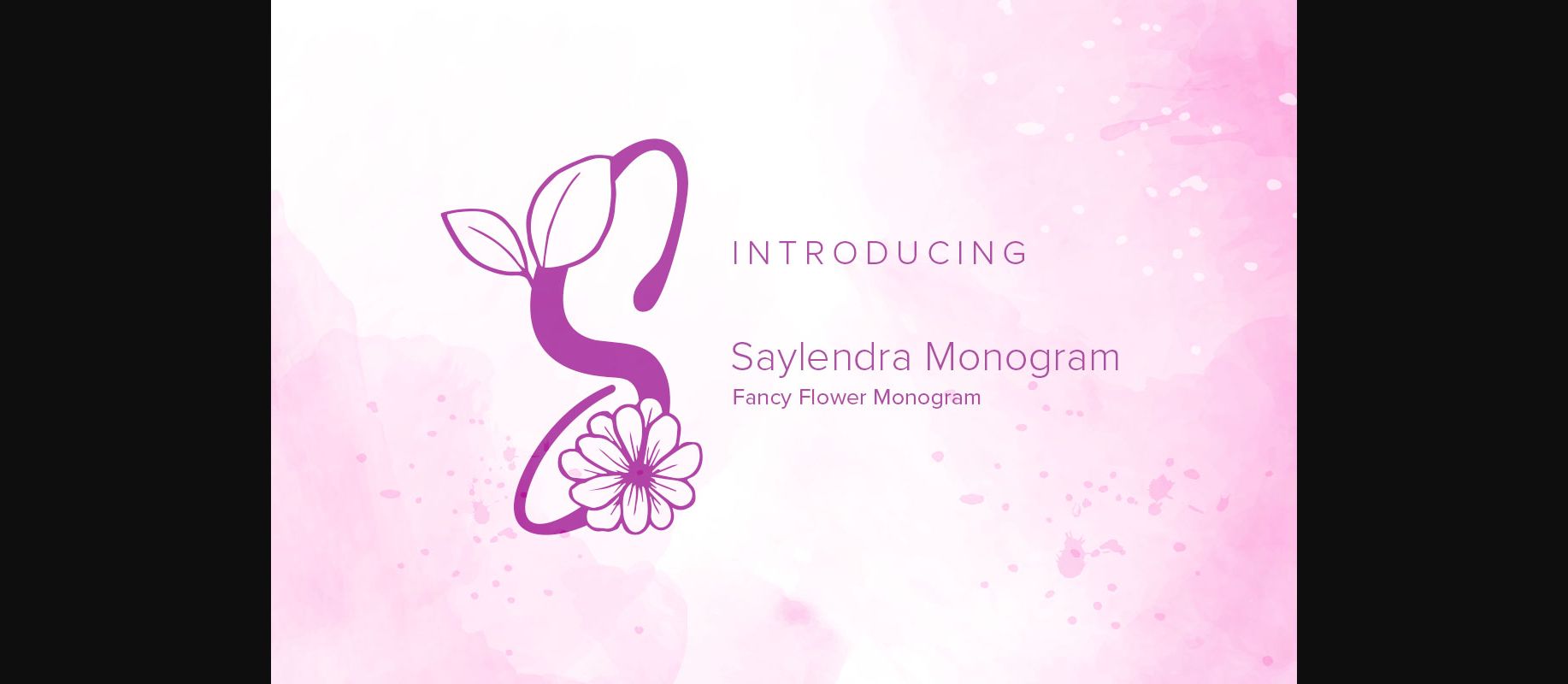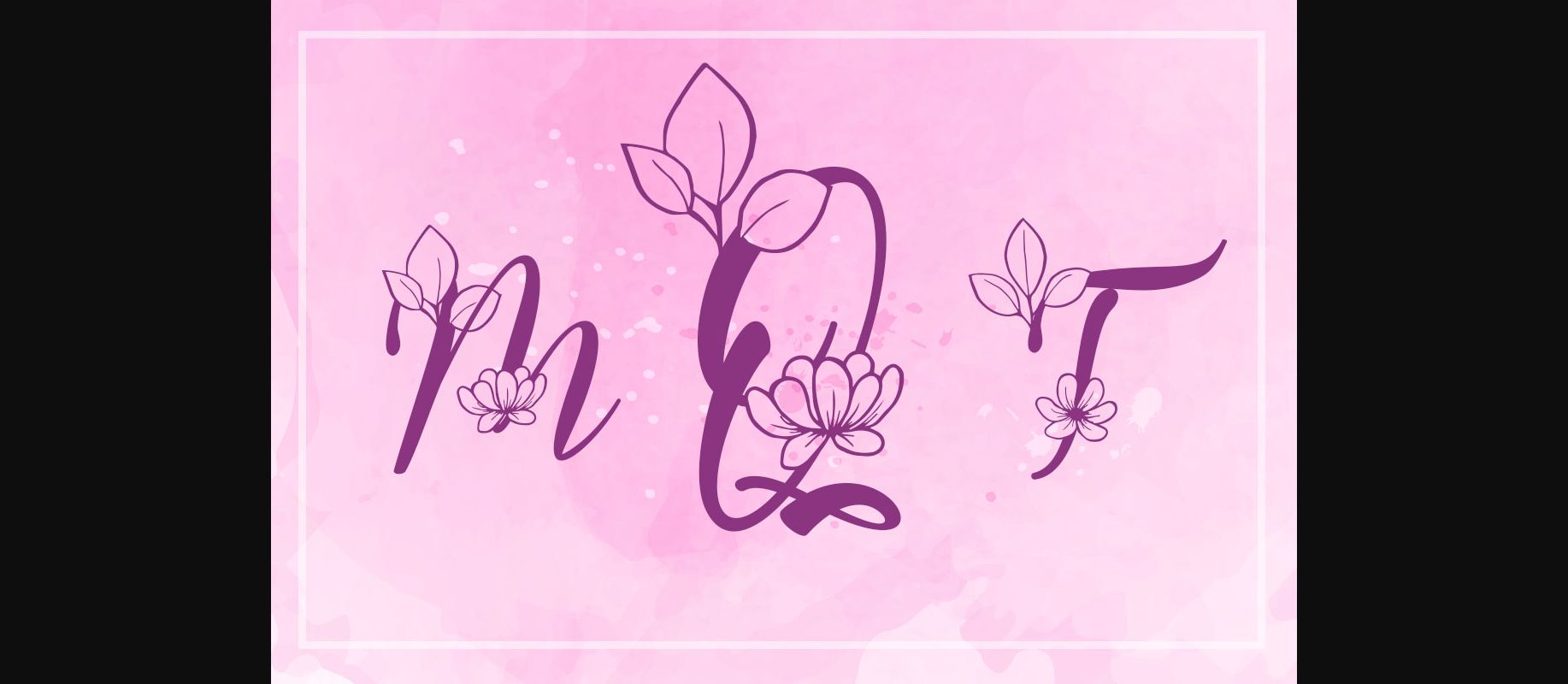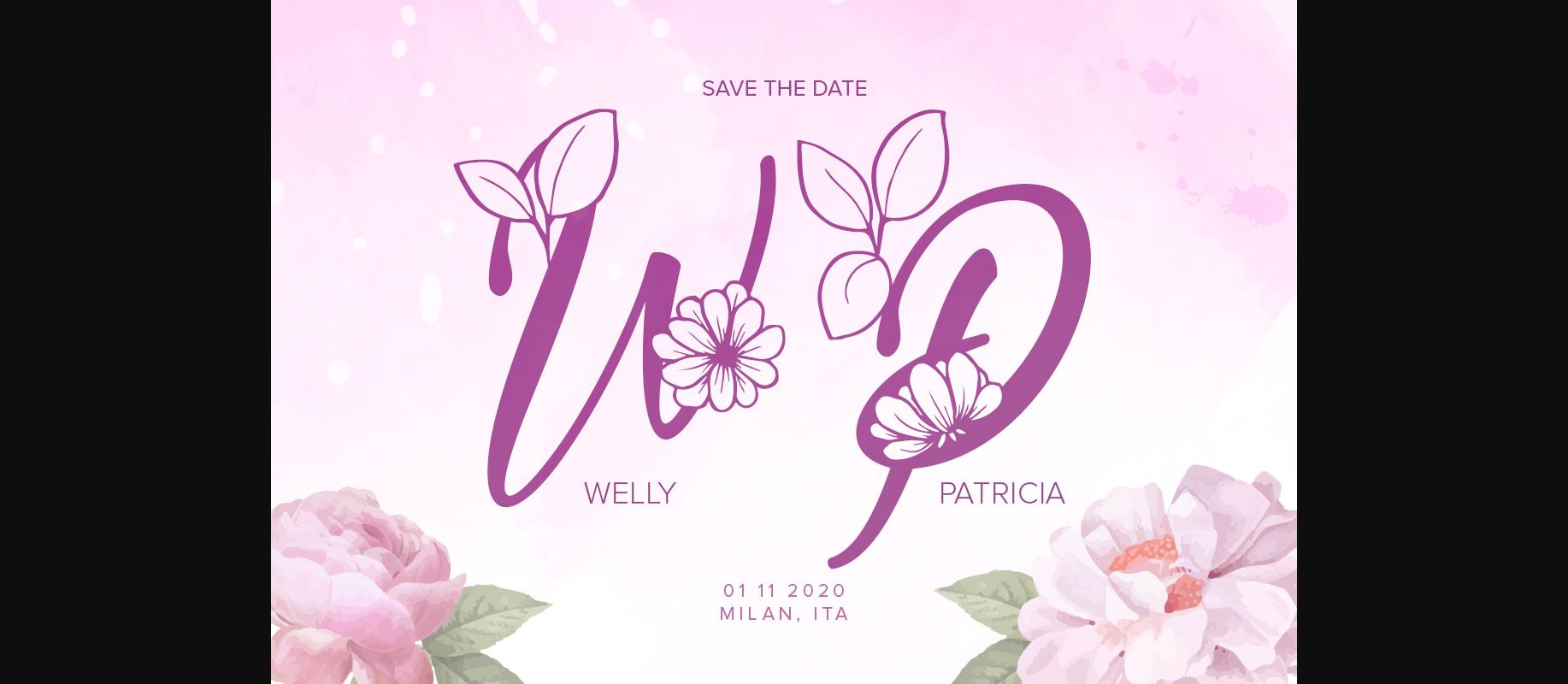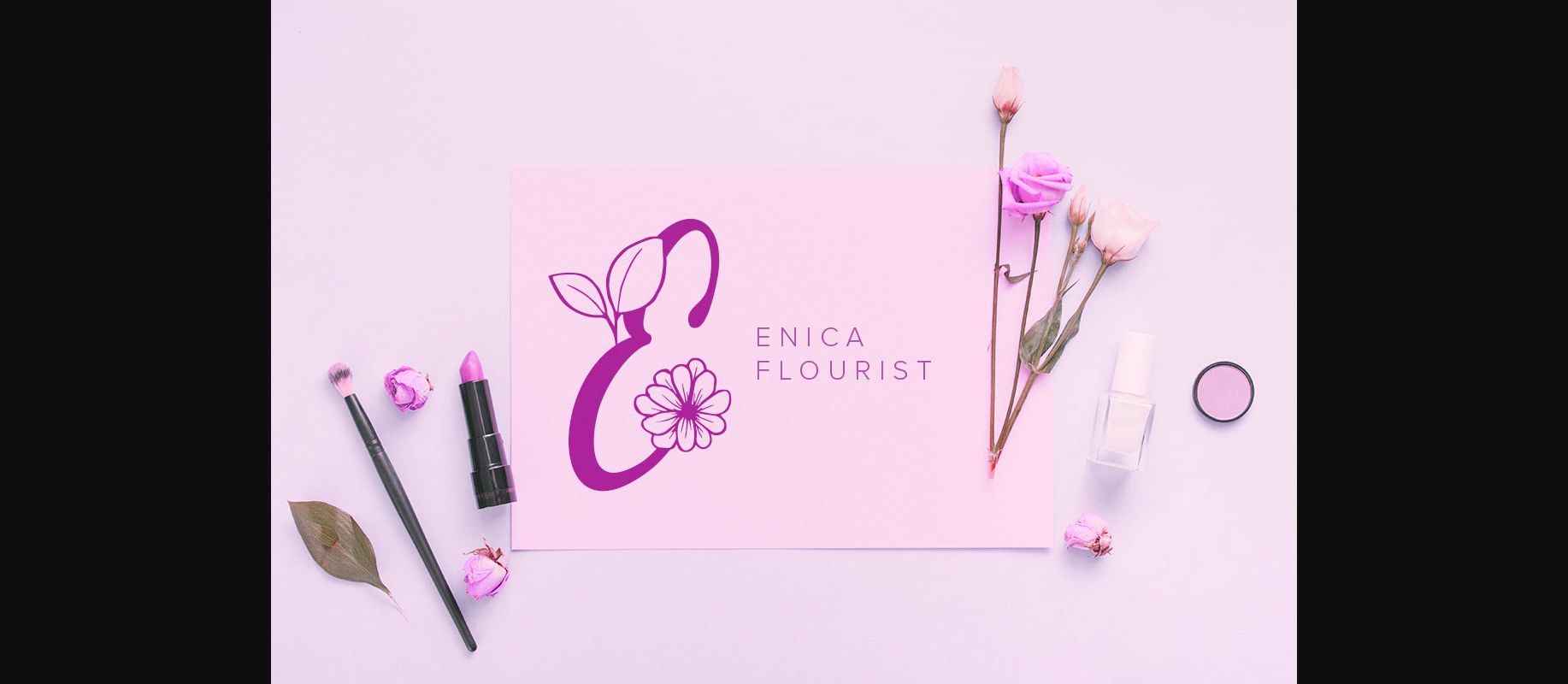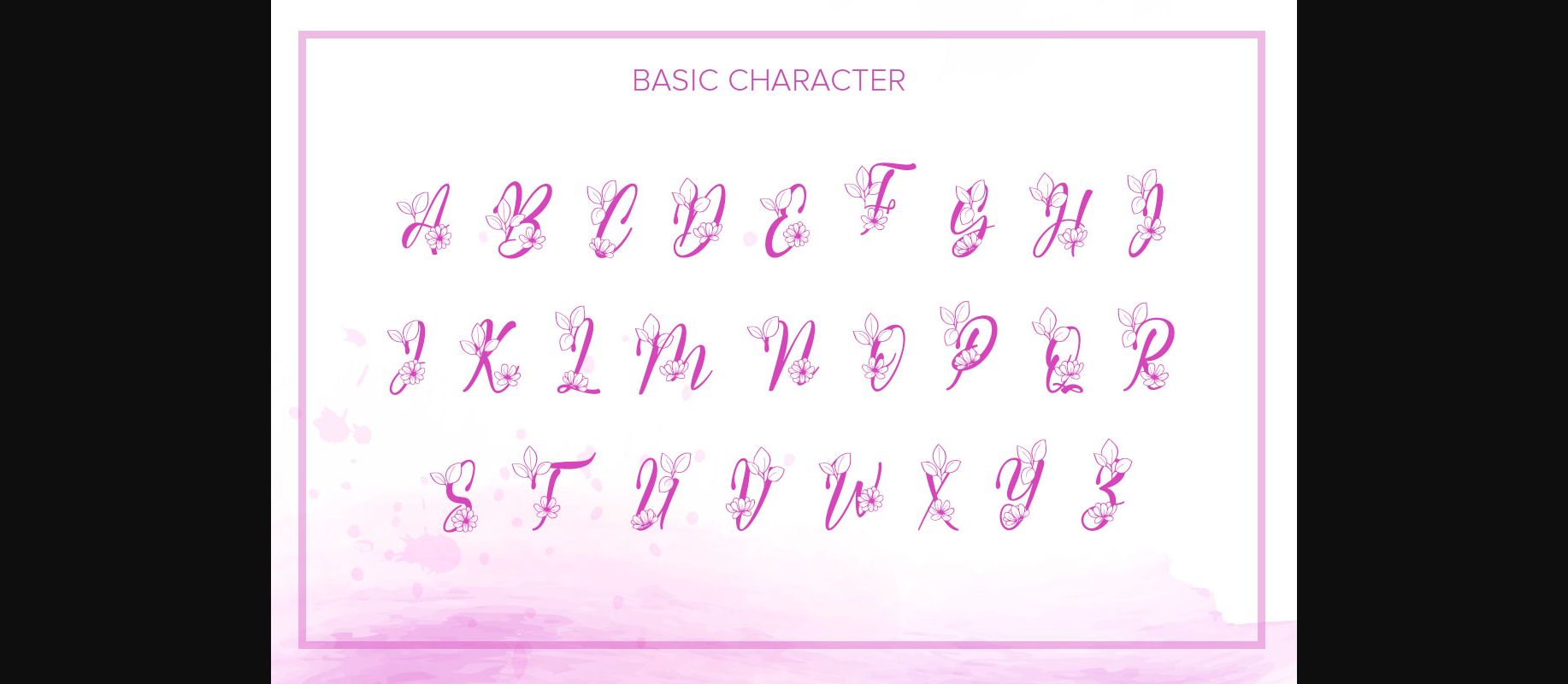
Saylendra Monogram Font
About Saylendra Monogram Font
Saylendra Monogram is a sweet and relaxed decorative font, featuring lovely flowers. Fall in love with its unique feel and use it to create gorgeous wedding invitations, beautiful stationary art, eye-catching social media posts, and cute greeting cards.